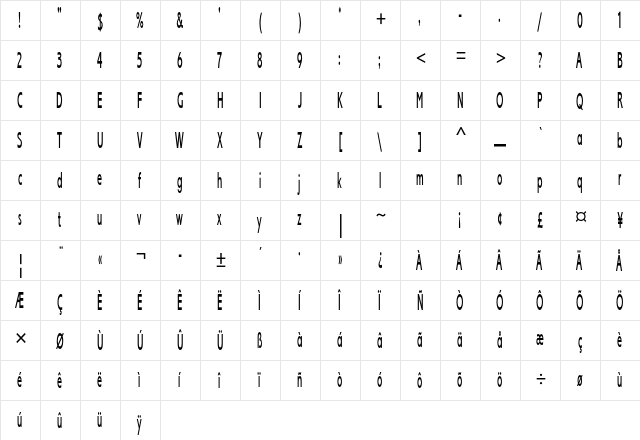
Lexikos Std Regular
| Designer | Vince Whitlock |
Design Context for Lexikos Std Typeface
Lexikos Std takes a measured approach to typography — its balanced proportions and neutral character make it a reliable workhorse for both digital and print work.
Originally released in 1997, this typeface is available in OpenType (OTF) format.